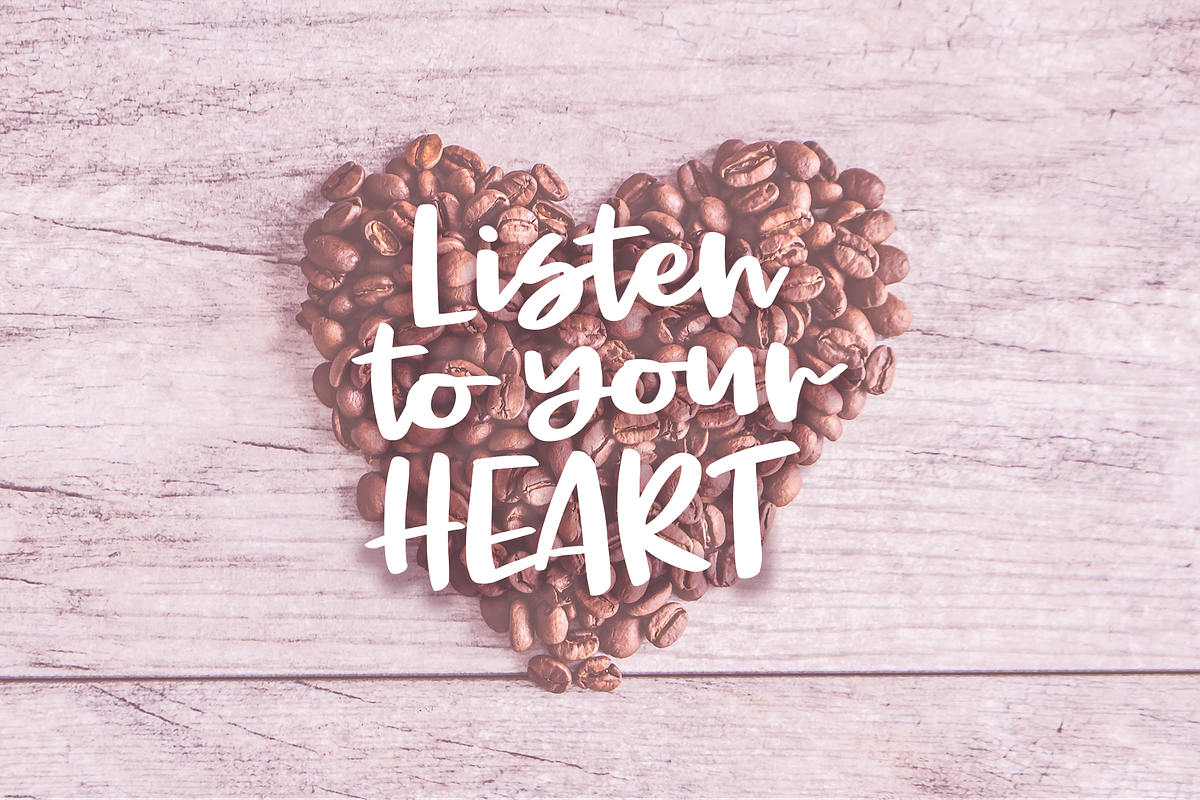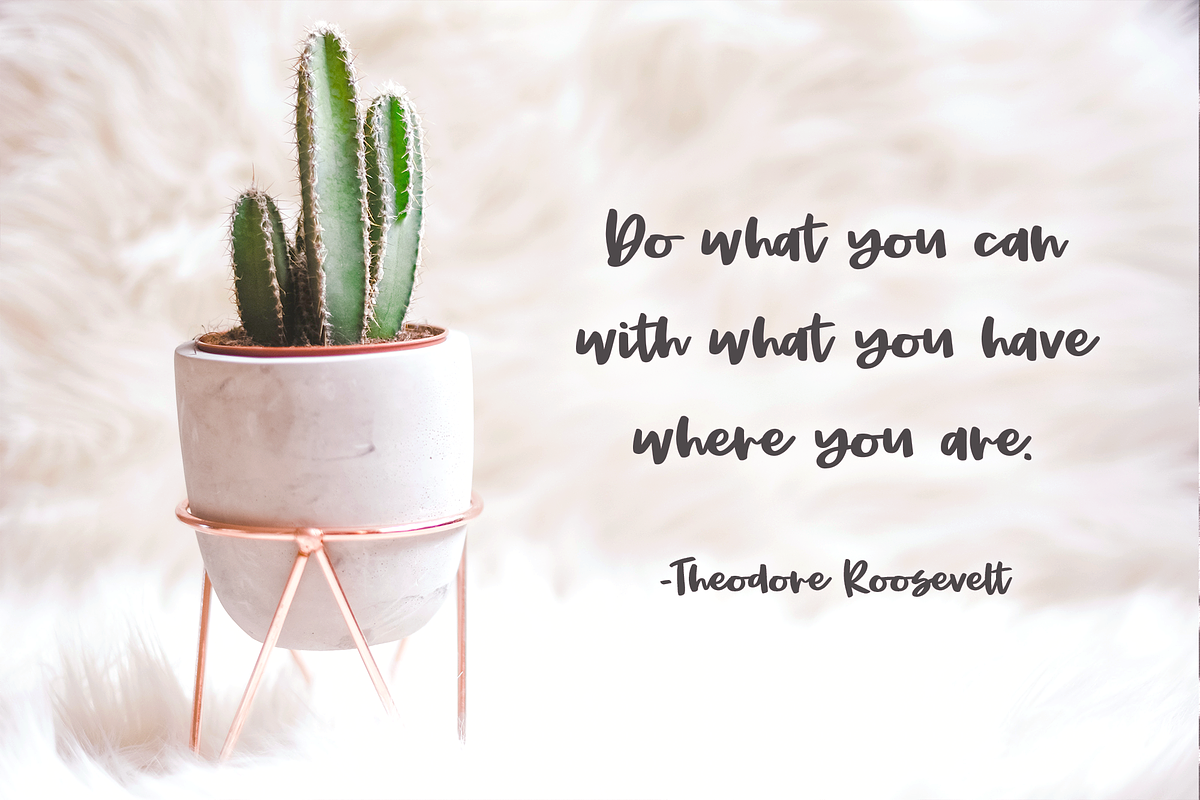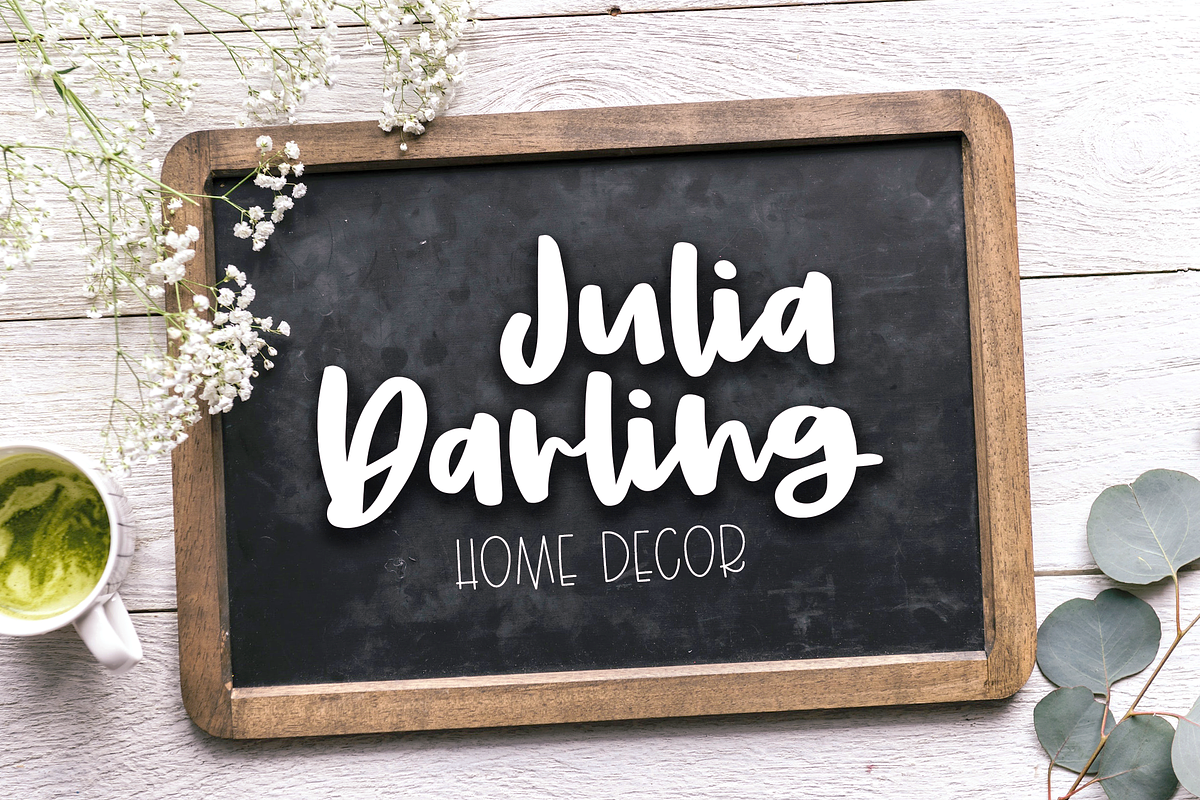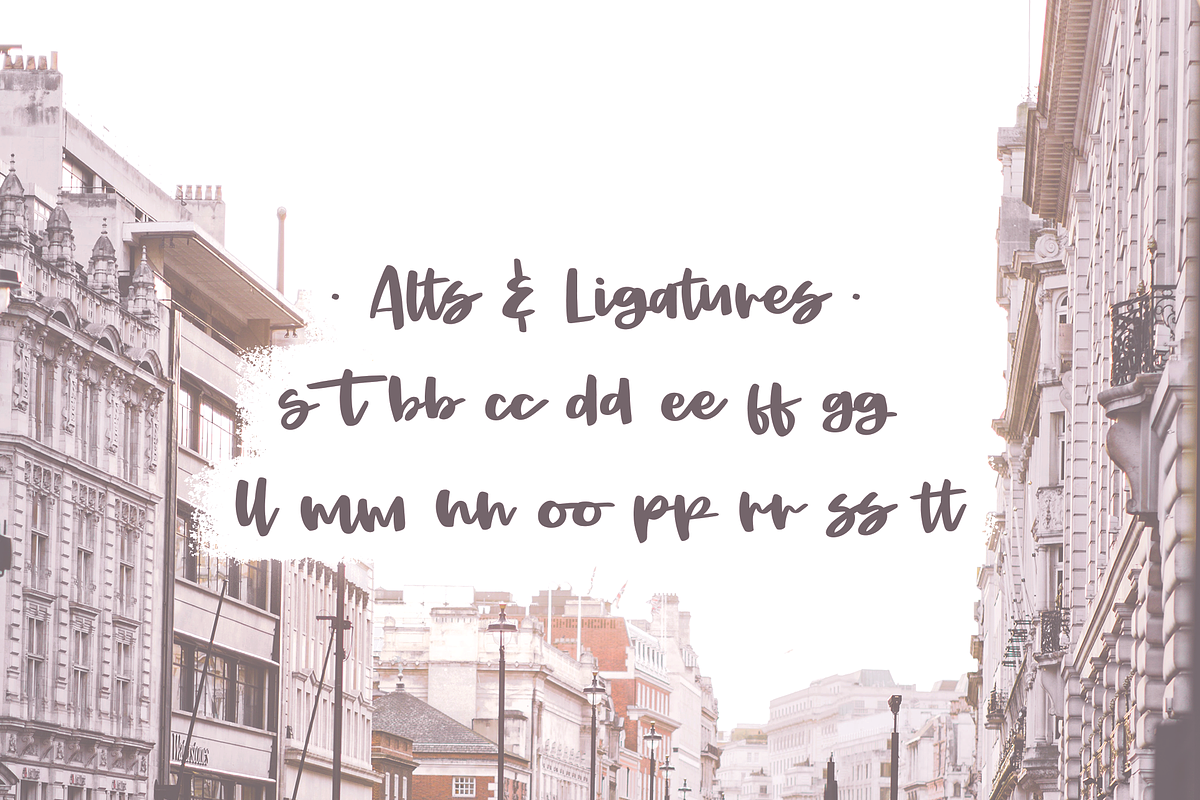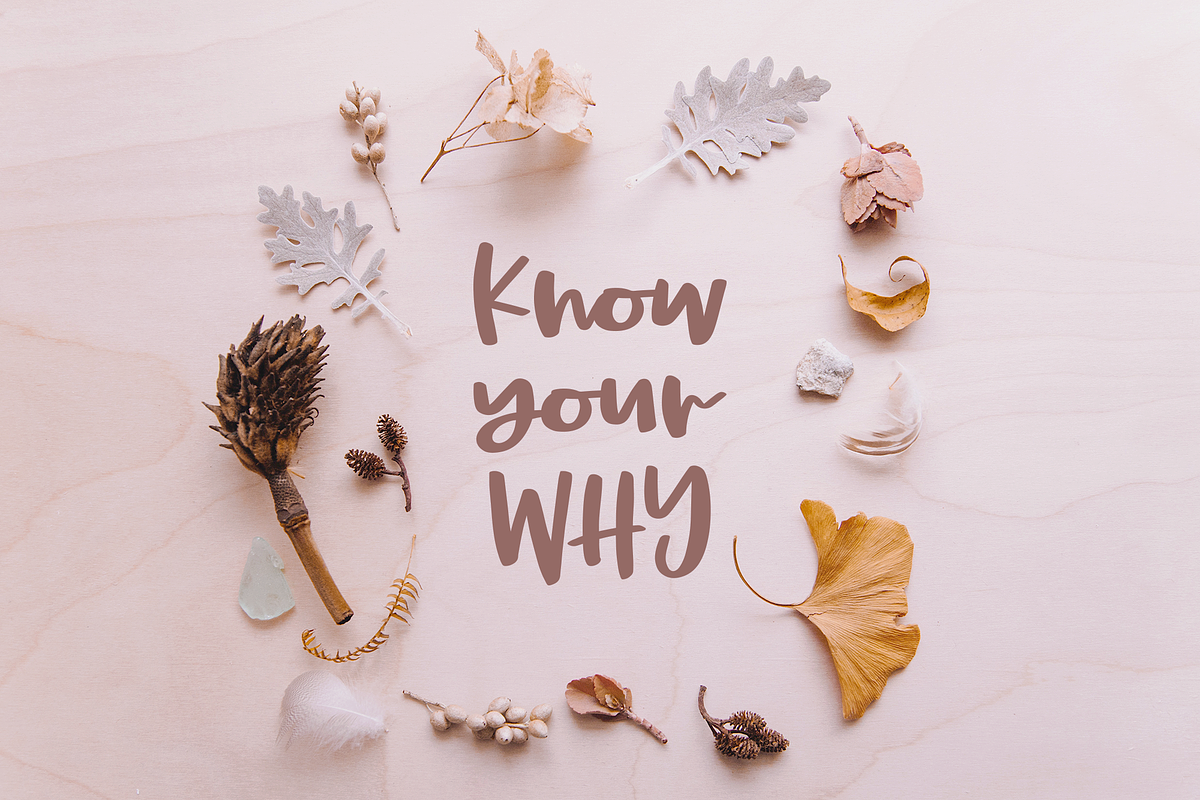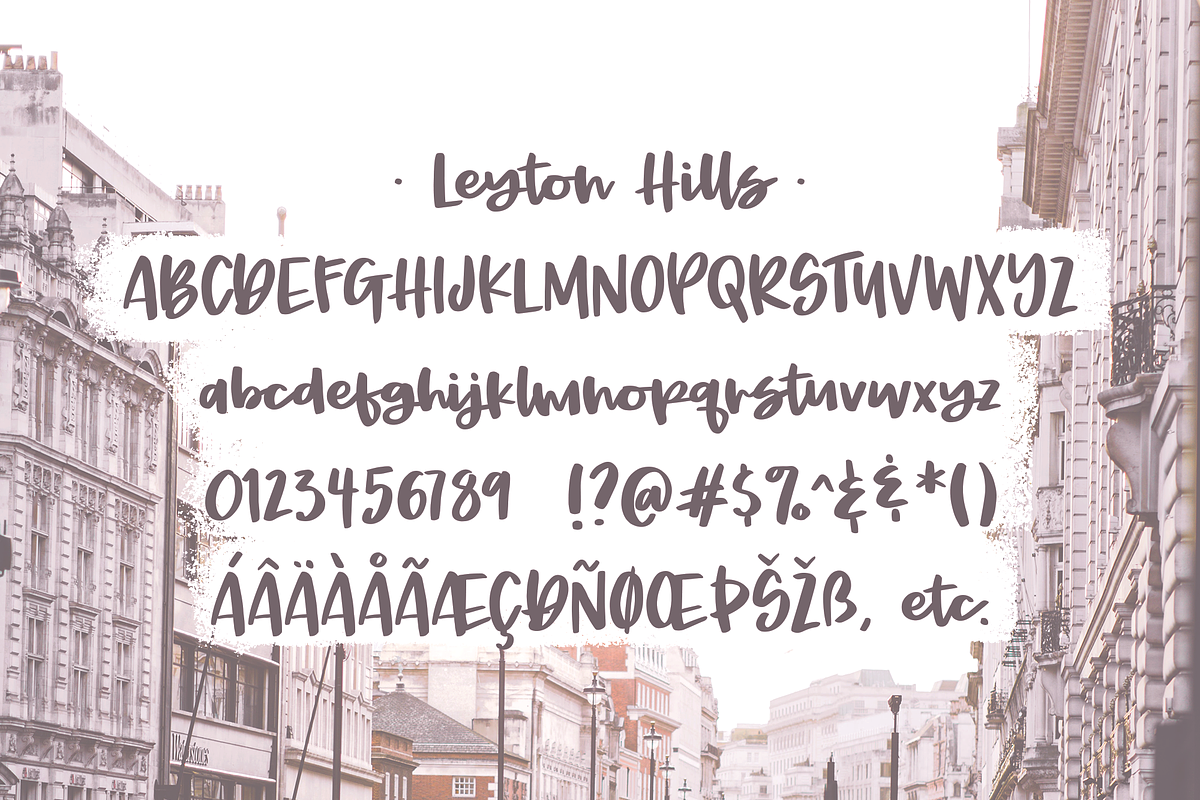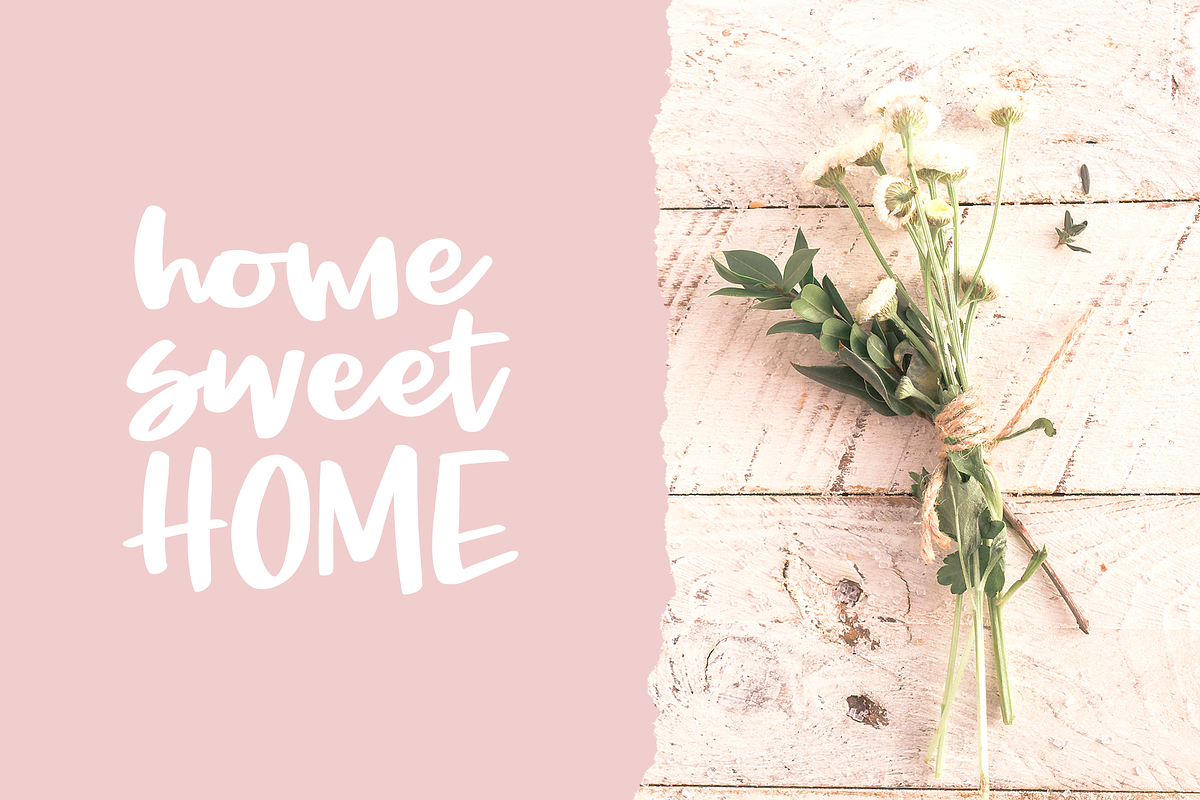
Leyton Hills, a heavy script font
Leyton Hills is a bold, heavy script font with smooth, flowing lines that add a strong yet elegant touch to your designs. Perfect for logos, headlines, packaging, invitations, and any project that needs a confident and stylish handwritten look.
Its thick strokes and connected letters give it a modern feel while remaining approachable and versatile. Use Leyton Hills to make your text stand out with impact and personality.